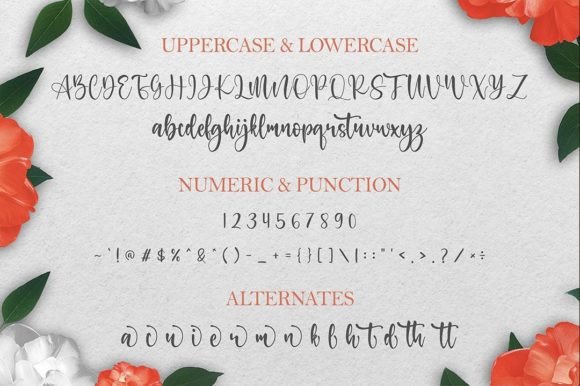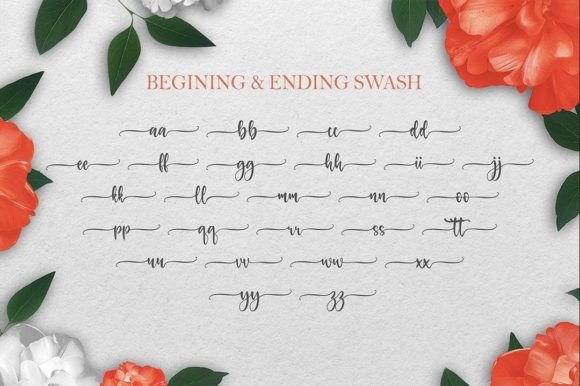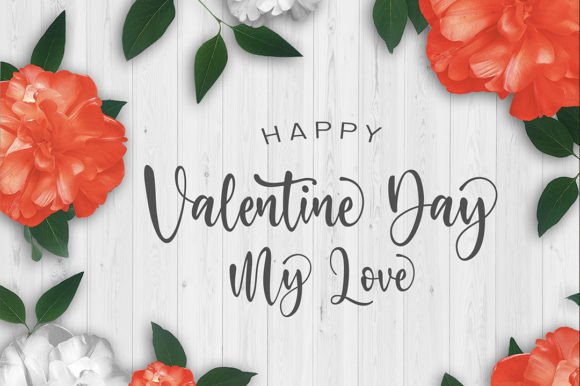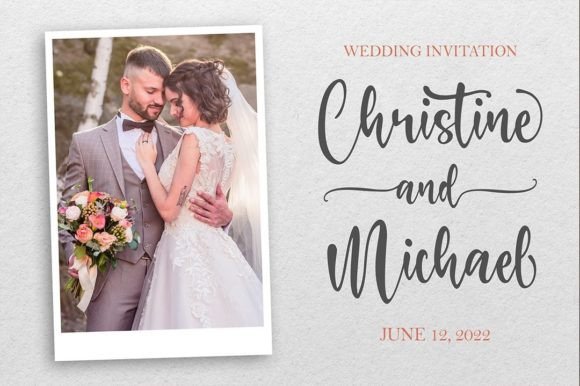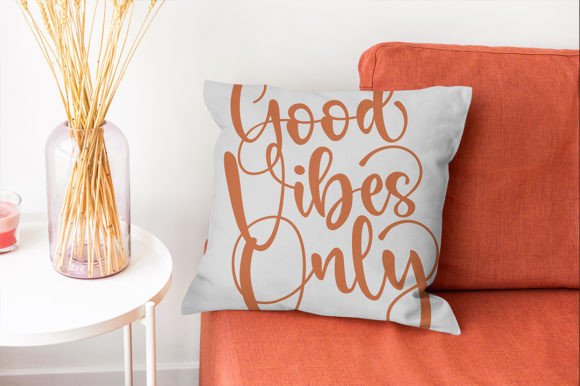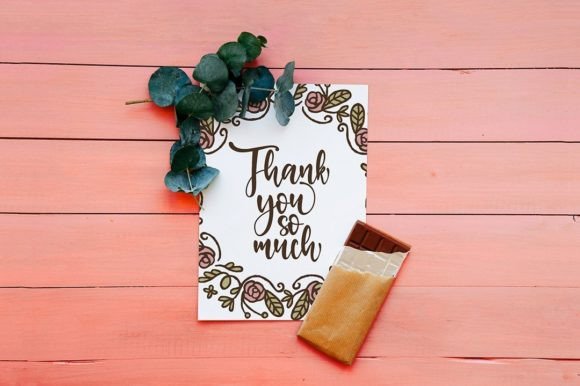
Buntan Font
About Buntan Font
Buntan Script is a charming, romantic, and beautiful script font characterized by graceful curves in every letter. Whether used in traditional media or on the web, this font exudes sweetness and sophistication, making it a perfect choice for a variety of design applications.
The font’s elegant curves contribute to its romantic and sweet aesthetic, making it well-suited for projects where a touch of beauty and charm is desired. Buntan Script’s versatility ensures it can enhance the visual appeal of traditional media, such as print materials, as well as web-based designs.
The PUA coding of Buntan Script is a notable feature, allowing easy access to a variety of glyphs and swashes. This feature enhances the font’s flexibility, providing you with creative freedom to incorporate unique characters seamlessly into your designs.
In summary, Buntan Script is a delightful addition to your font collection, offering a sweet and romantic touch. Its beautiful curves, combined with PUA coding, make it a versatile and user-friendly option for a range of design projects, bringing an elegant and charming quality to your creative endeavors.